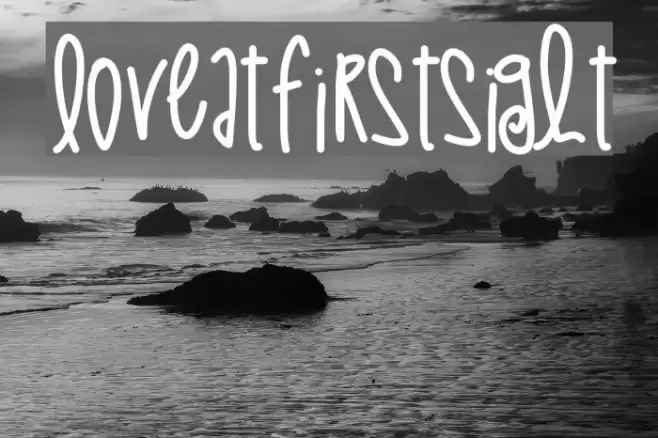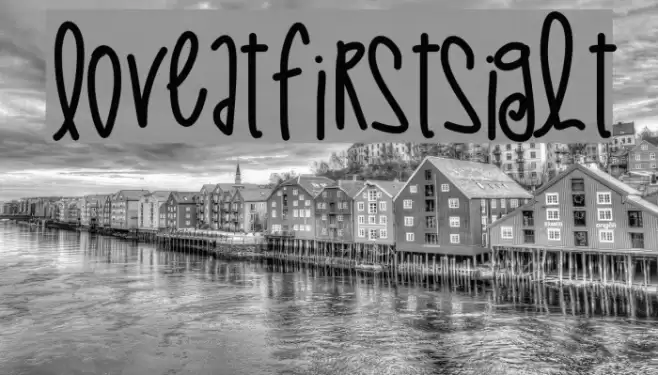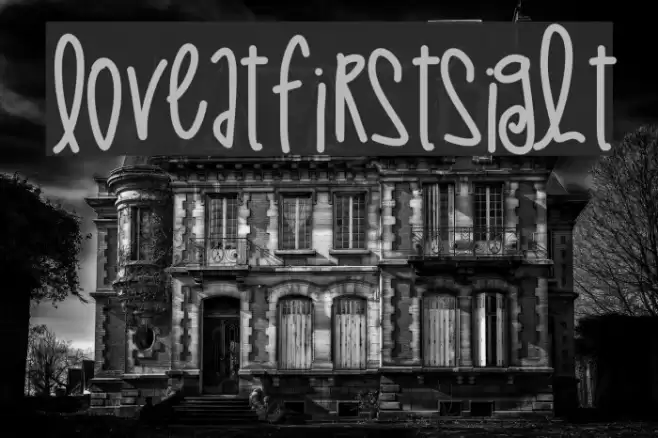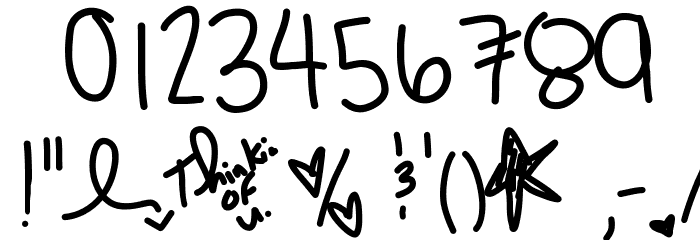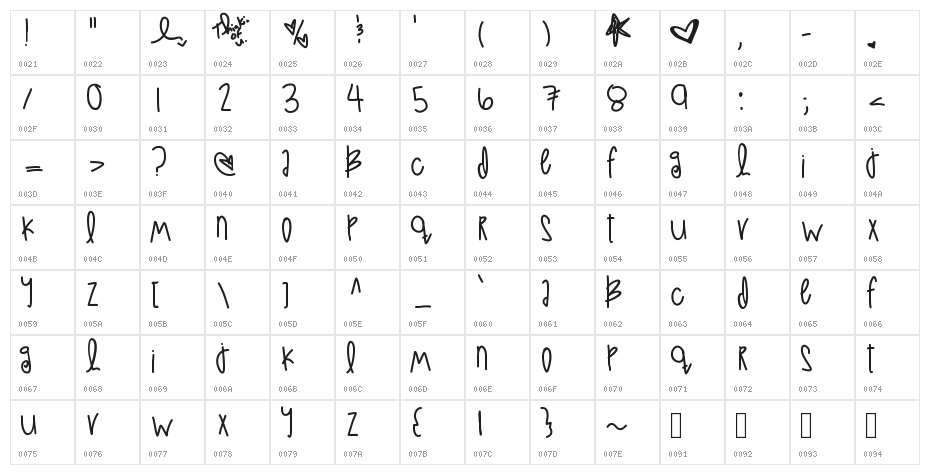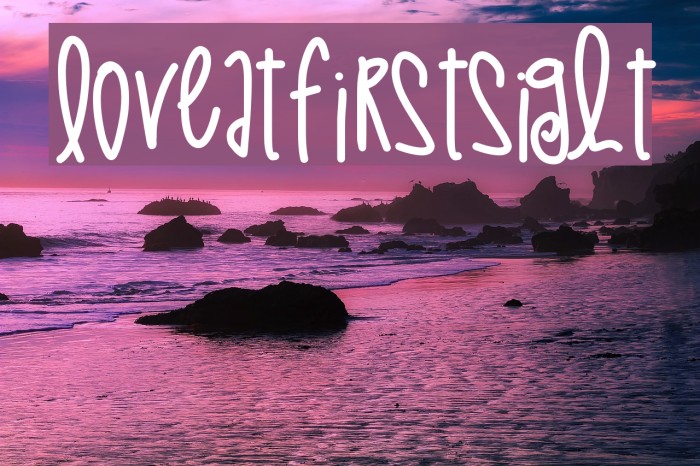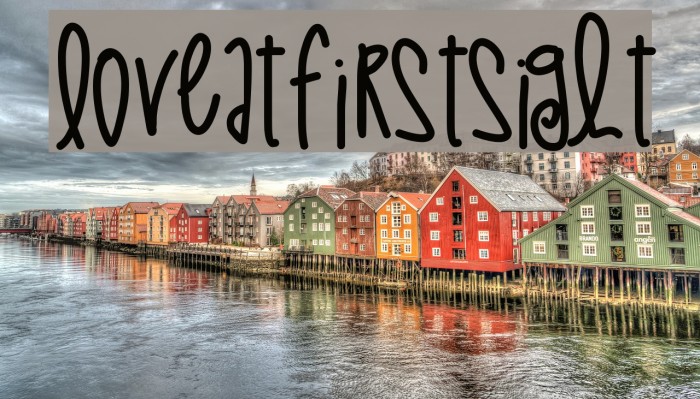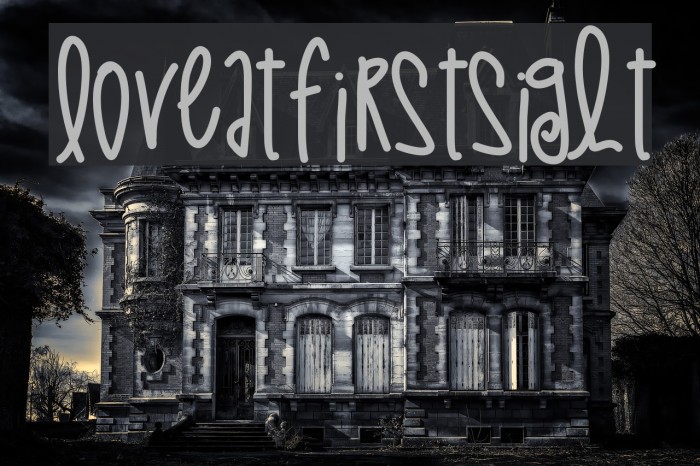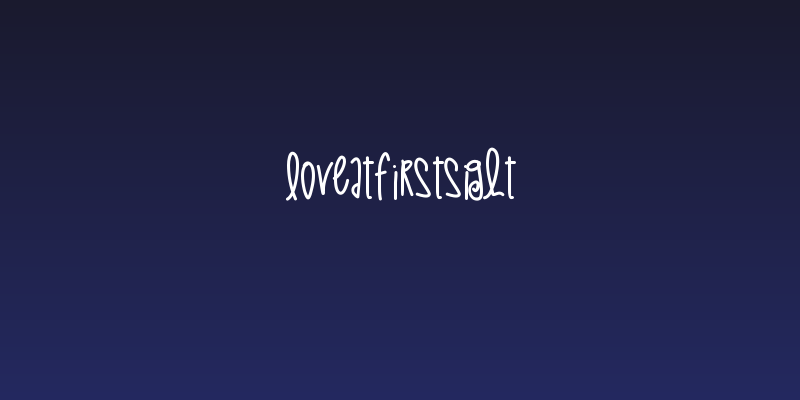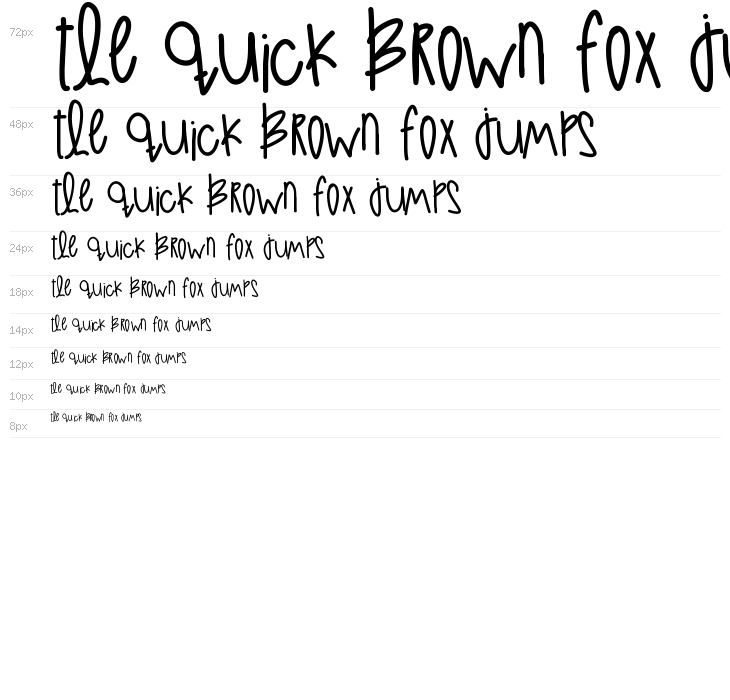
LoveAtFirstSight Font
LoveAtFirstSight Description
This font exudes a playful and casual handwritten style, characterized by its flowing, interconnected strokes and slightly irregular letterforms. The letters have a natural, organic feel, with varying heights and a whimsical touch that adds personality to the text. The font maintains a consistent line weight, giving it a cohesive appearance while allowing for easy readability. Its informal nature makes it perfect for conveying a friendly and approachable tone, ideal for creative projects that require a personal touch. The inclusion of special characters and symbols enhances its versatility, making it suitable for a variety of design needs.
A playful, casual handwritten font with flowing, interconnected strokes from Uncategorized fonts.
- Proposed Projects: Greeting cards, personal notes, social media graphics, children's book illustrations, and informal branding.
- Overall Style: Casual, Playful
- Use Case: Greeting cards, Personal notes, Social media graphics